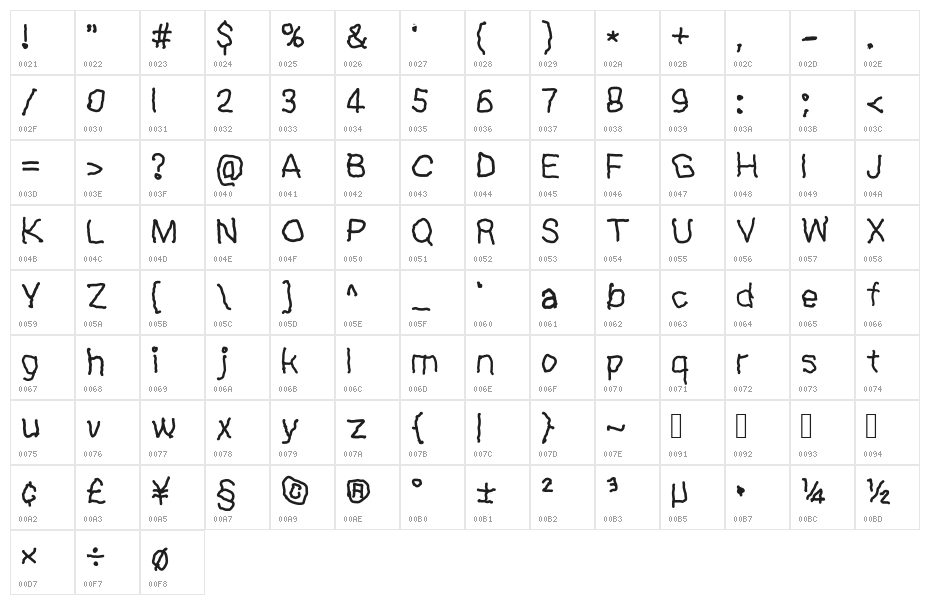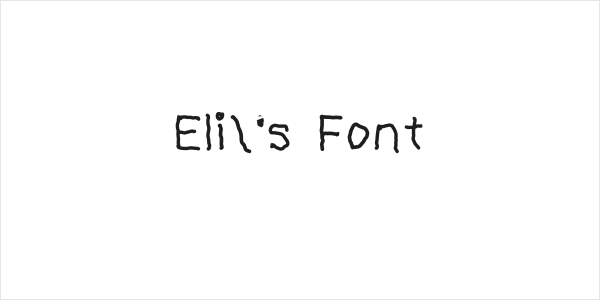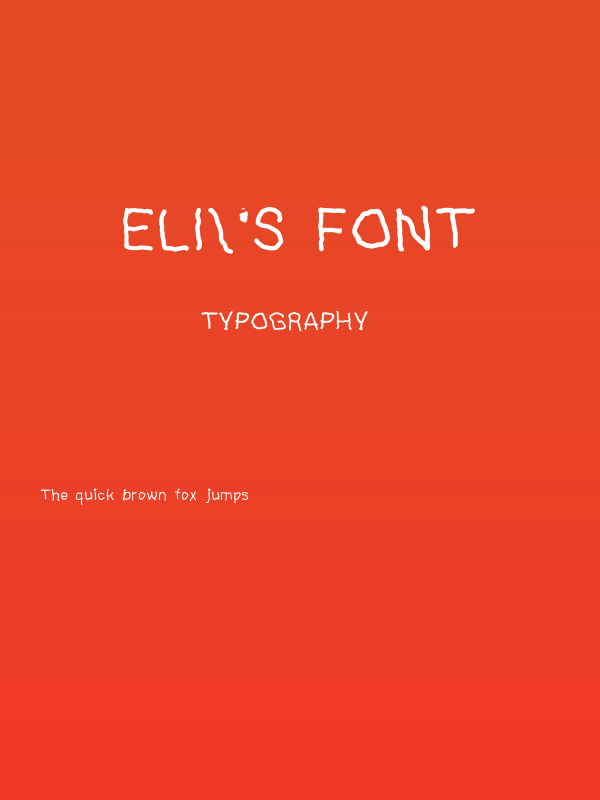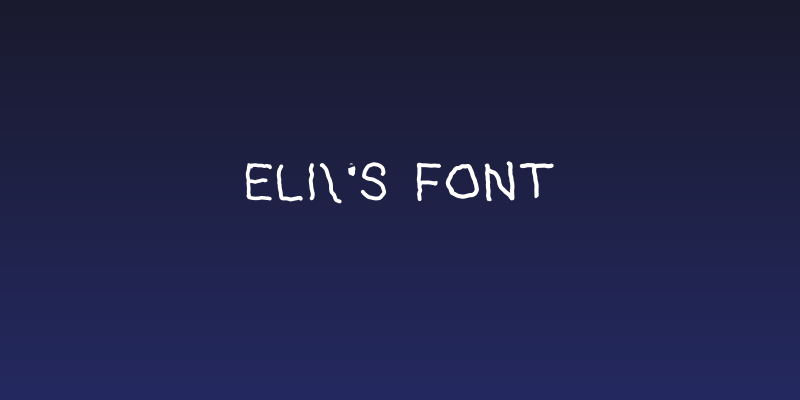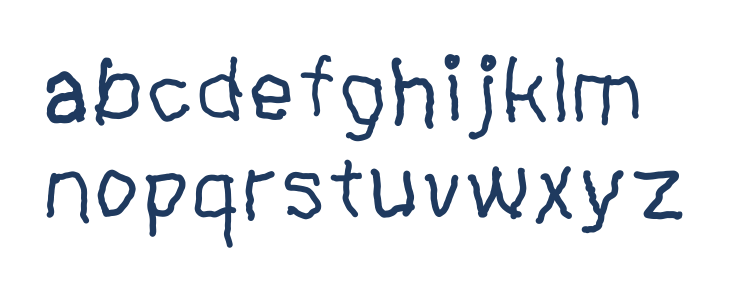
Eli's Font Font
Eli's Font Description
This font features a playful and organic style, characterized by its uneven, hand-drawn appearance. The letters have a rough, textured edge that gives them a casual and informal look. The uppercase and lowercase letters maintain a consistent style, with slightly irregular shapes that add to the font's charm. The numbers and special characters follow the same design, ensuring a cohesive look across all elements. The font's unique style makes it suitable for creative projects where a personal touch is desired.
| Proposed Projects | Ideal for children's books, creative posters, casual invitations, and artistic branding. |